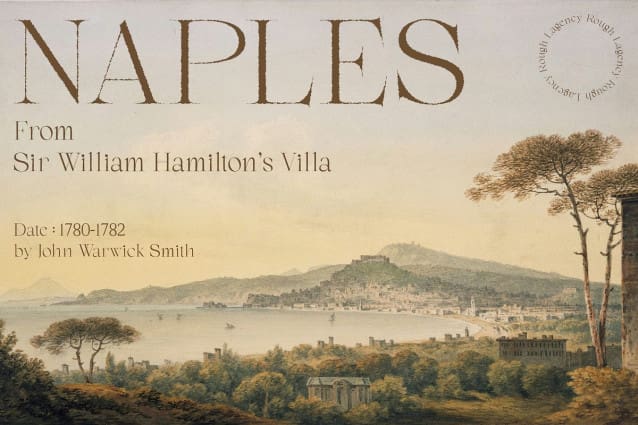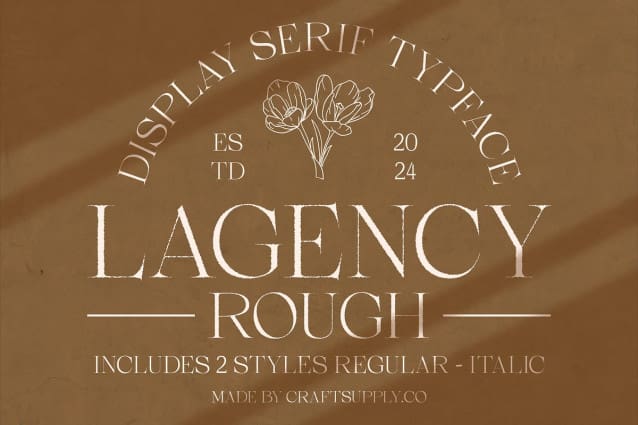
Lagency Rough Font
Lagency Rough Font is a modern serif font that blends elegant design with a rough texture, creating a captivating contrast between sophistication and raw appeal. The refined serif elements are given an edge with distressed details, making this font both timeless and intriguing.
Perfect for Sophisticated Branding This font is ideal for branding projects that require a balance of elegance and character. Lagency Rough adds a layer of depth and uniqueness, ensuring your brand stands out with a sophisticated yet distinctive look.
Versatile for Editorial Work and Creative Projects Lagency Rough is also perfect for editorial designs, where its combination of classic charm and modern roughness can add a dynamic and engaging visual element. It’s equally effective in creative projects that demand a blend of tradition and contemporary edge.
Captivating and Timeless Design Whether used in logos, headlines, or promotional materials, Lagency Rough offers a captivating and timeless design that leaves a lasting impression. Its unique blend of refinement and rawness makes it a versatile choice for a wide range of sophisticated and creative applications.